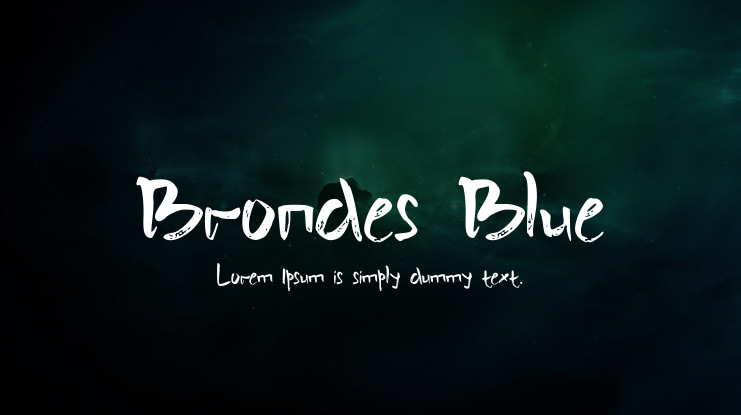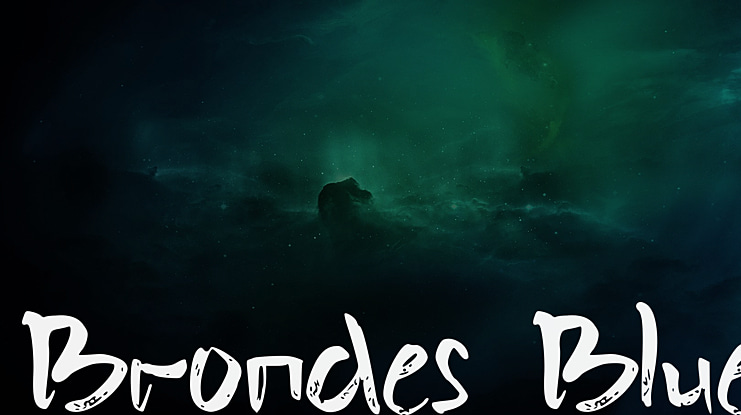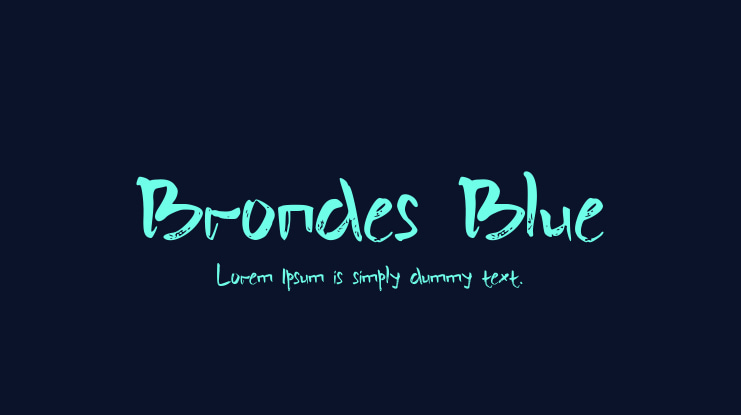
Brondes Blue Font
Ahmad Saiful Mutohhar+Rafantype Studio
Brondes Blue is a cool and friendly display font. Expertly designed to make your creation look out of this world, this font will look gorgeous on a variety of ideas.